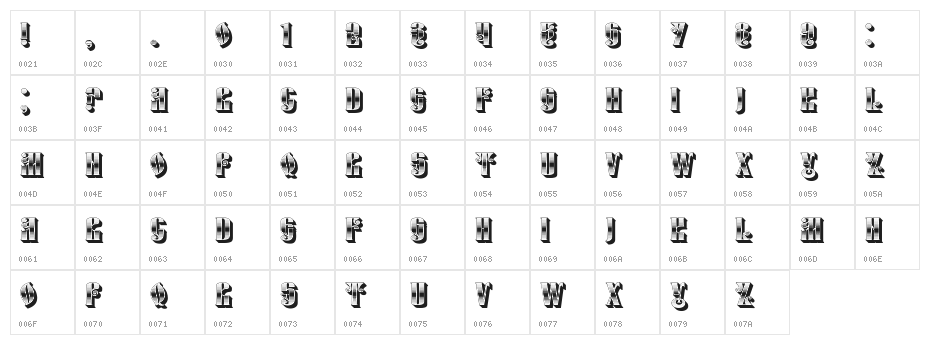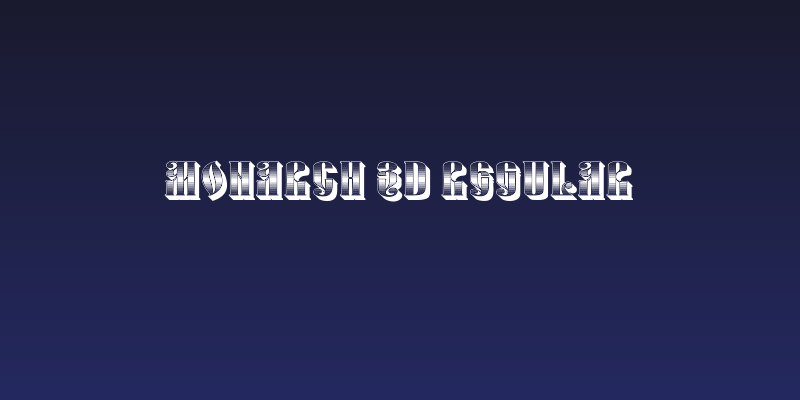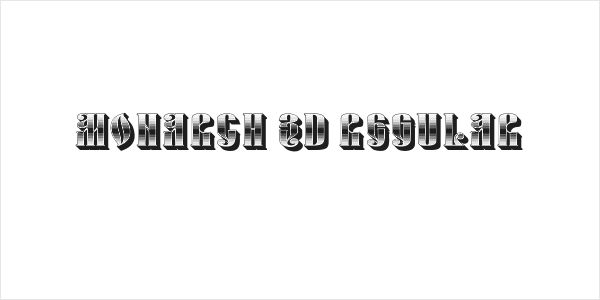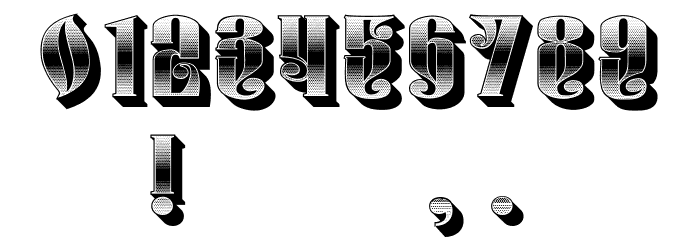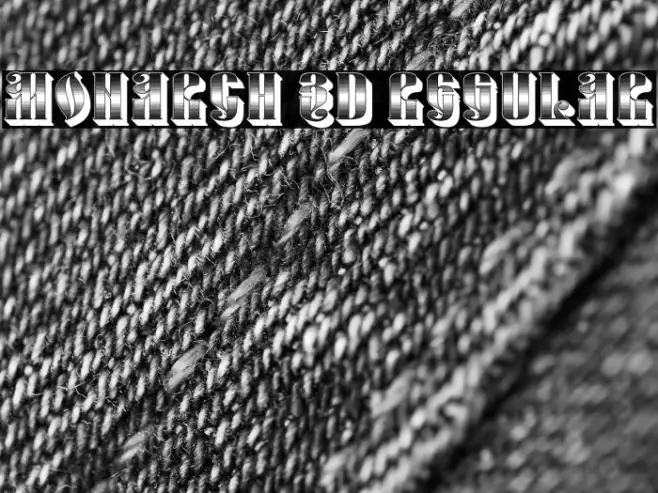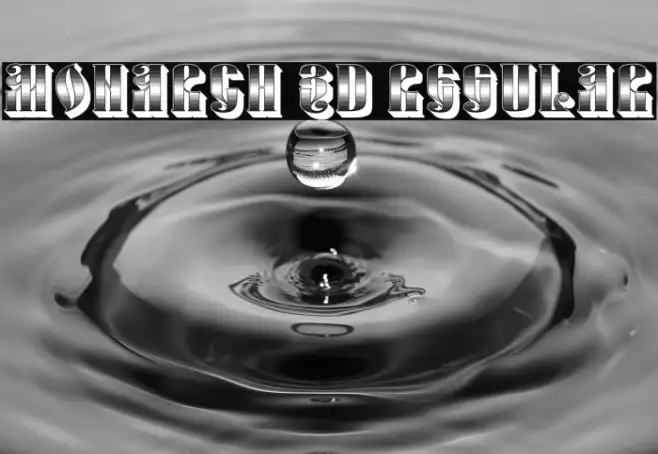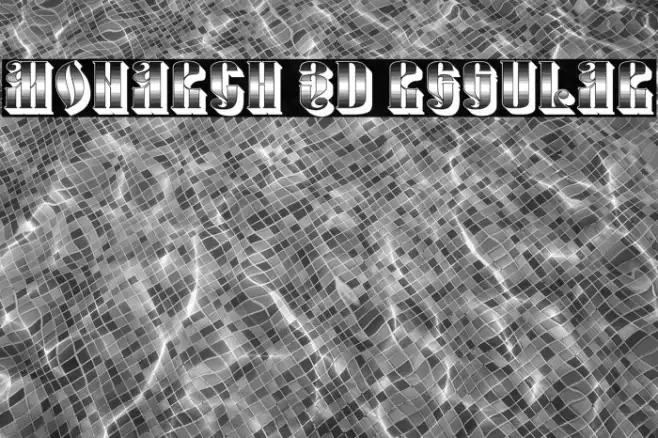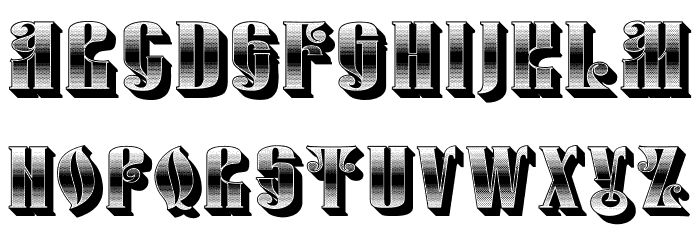
Monarch 3D Regular Font
Monarch 3D Regular Description
This font features a bold and striking 3D effect, characterized by its intricate detailing and shadowing that gives each character a sense of depth and dimension. The design incorporates ornate elements, with flourishes and embellishments that add a touch of elegance and sophistication. The uppercase and lowercase letters maintain a consistent style, with the numerals and special characters also reflecting the same decorative approach. The overall appearance is both eye-catching and dramatic, making it suitable for projects that require a strong visual impact.